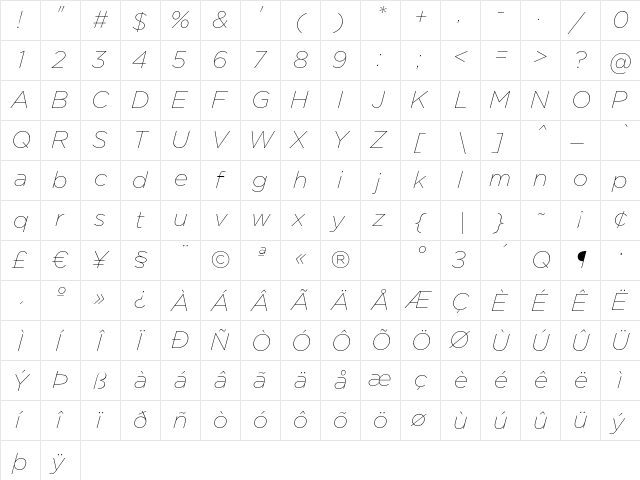
Gotham Italic
Design Context for Gotham Typeface
Gotham offers clean, dependable letterforms without strong stylistic allegiance, making it a practical choice for designers who need flexibility. The slanted form adds forward momentum and visual energy.
Pro Tip: Try Gotham for annotation and caption copy alongside an upright companion — the contrast in angle creates a dynamic but ordered typographic system.